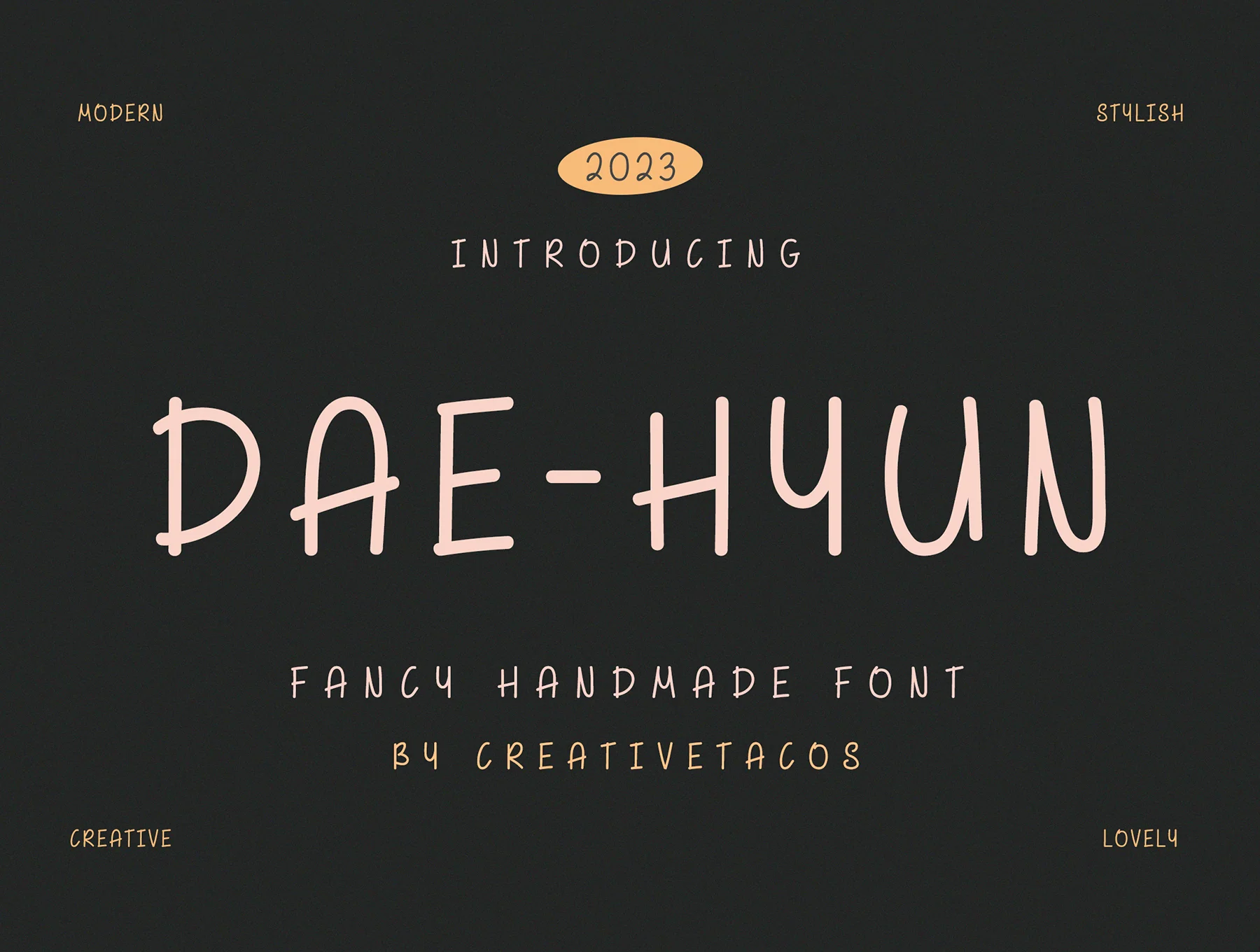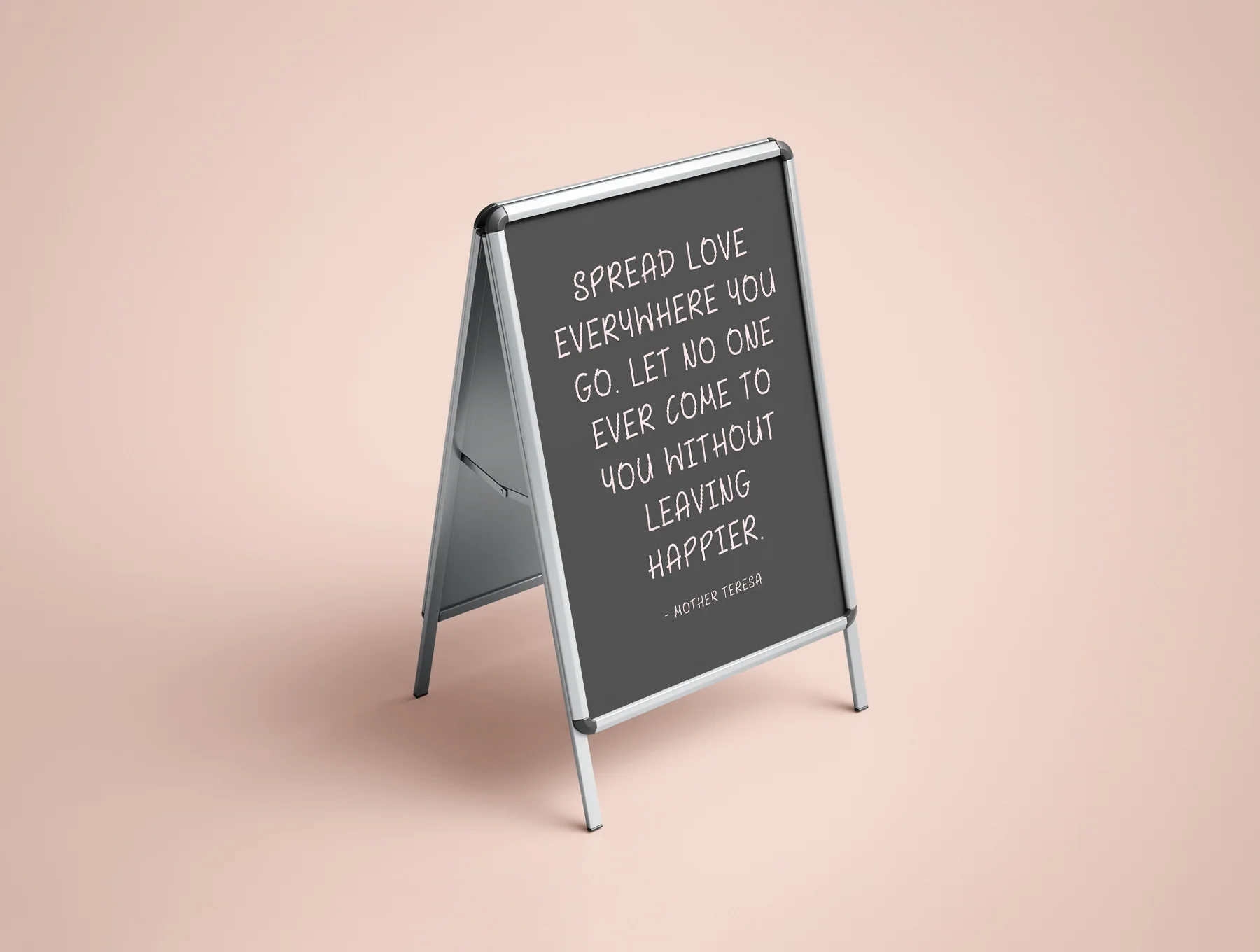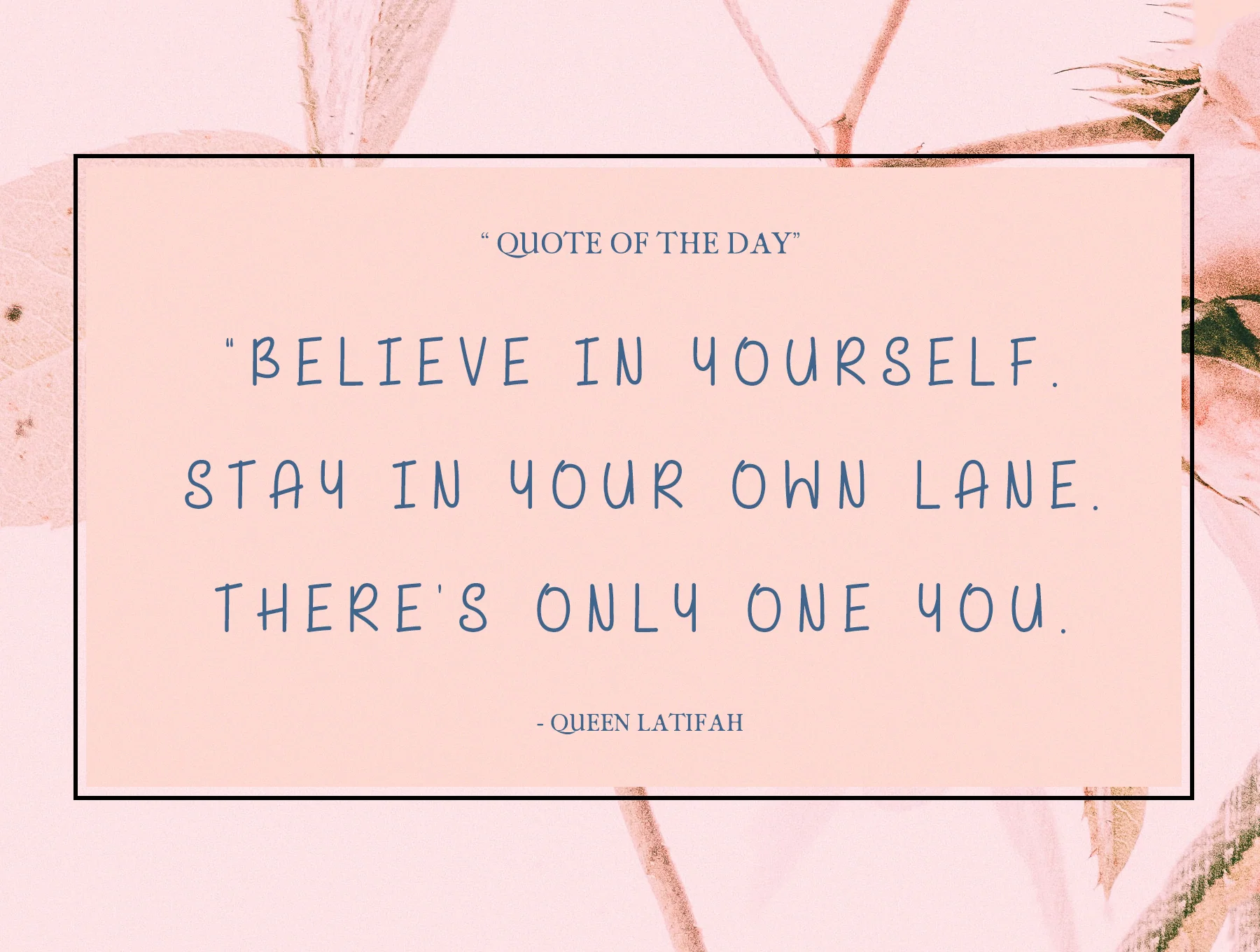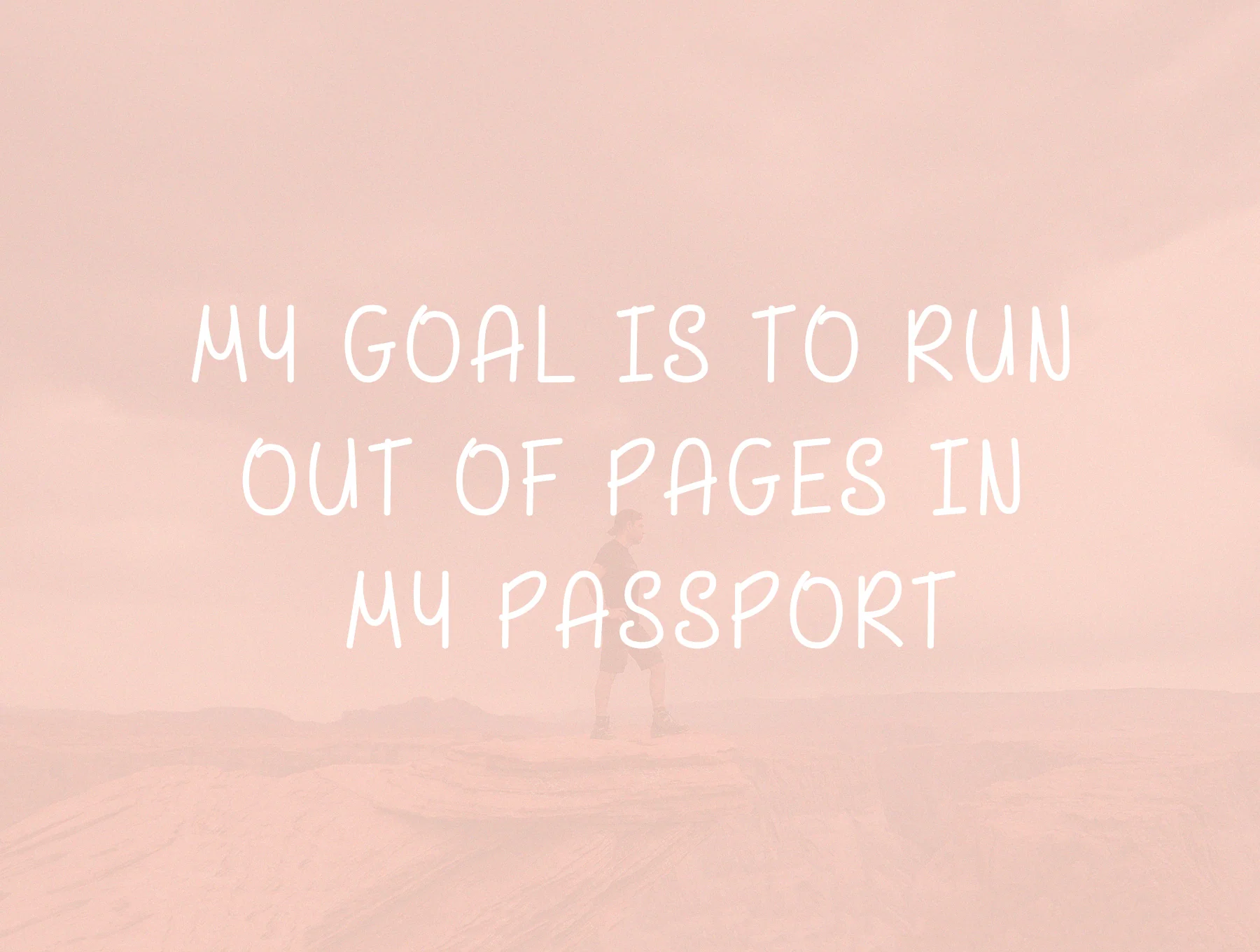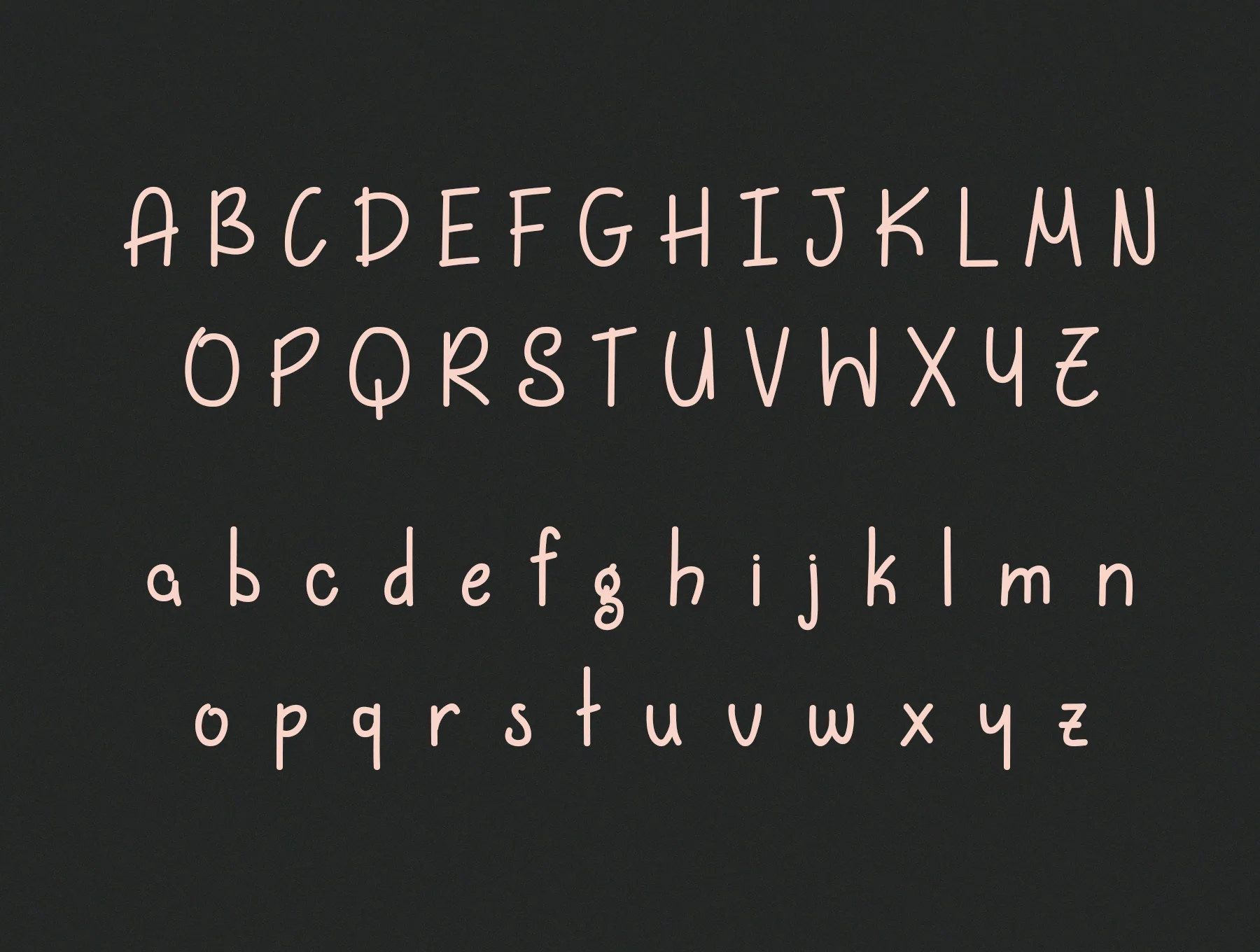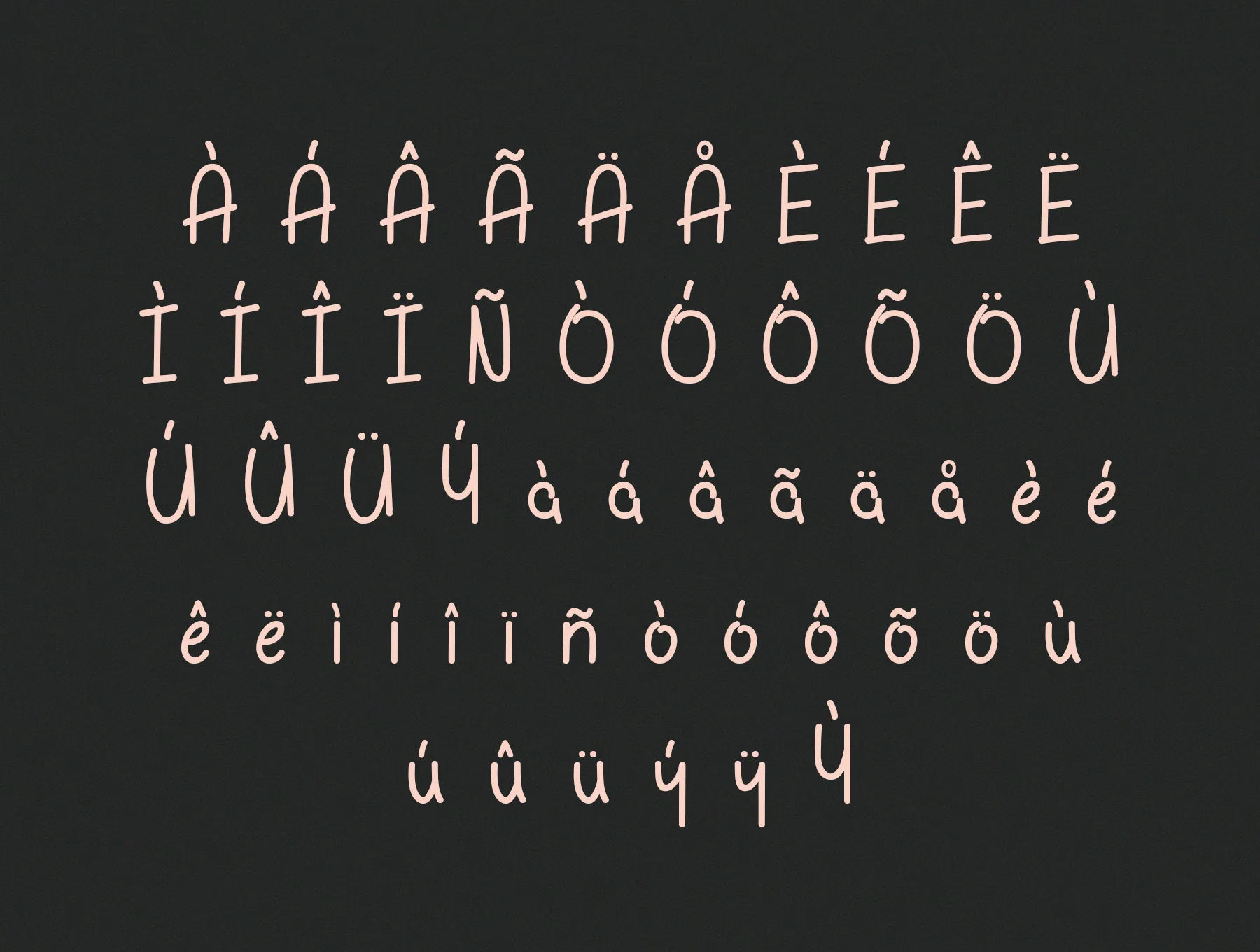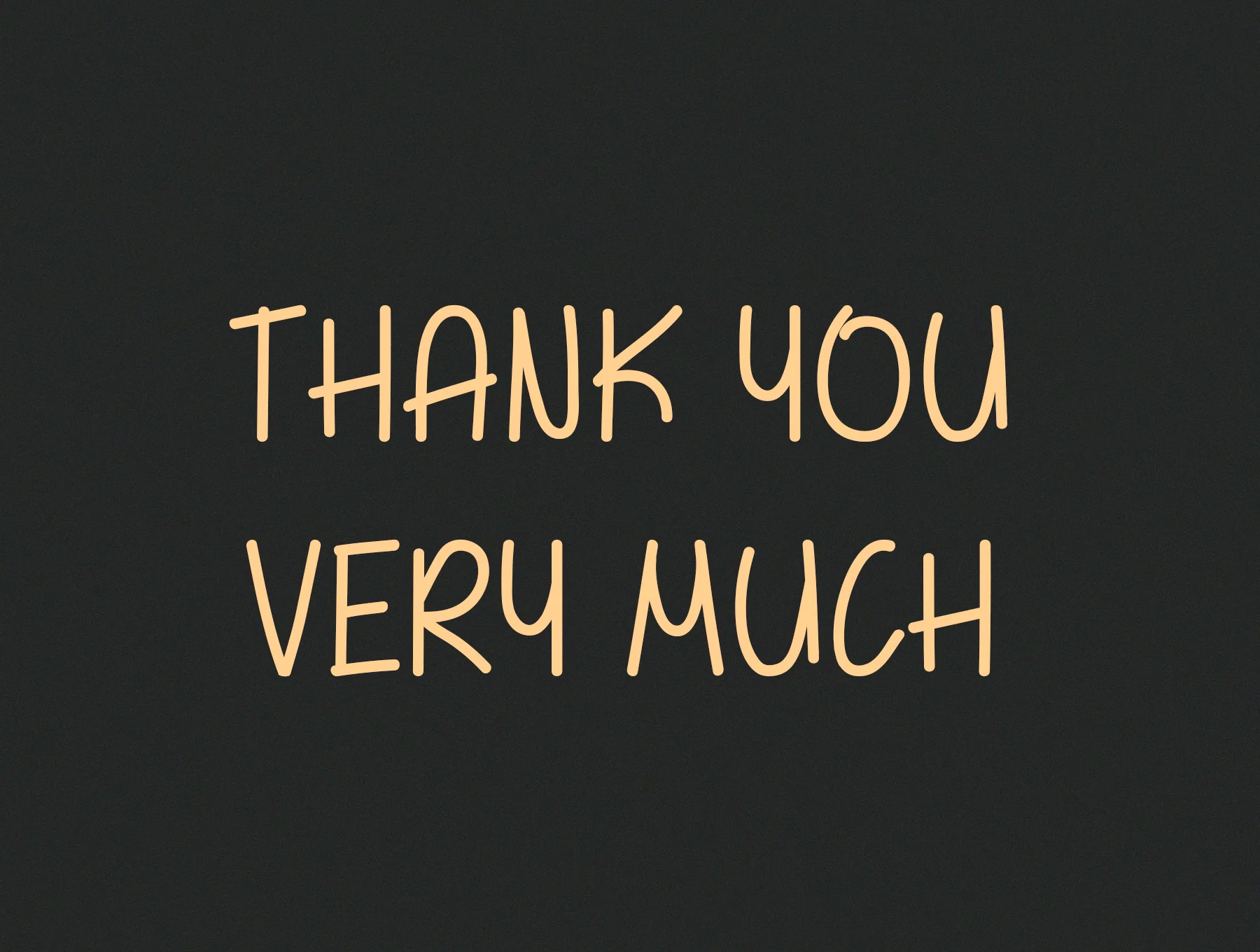
Dae-hyun Fancy Font
Dae-hyun Decorative Typeface
Decorative typeface
150-character glyph set
Standard style
Dae-hyun Fancy Font is a charming new typeface designed to add playful, creative energy to your work. It includes regular weight in OTF, TTF, and web font formats, with uppercase and lowercase letters, numbers, punctuation, symbols, and multilingual characters. Ideal for logos, posters, packaging, invitations, branding, headlines, comics, kids’ party designs, and more.